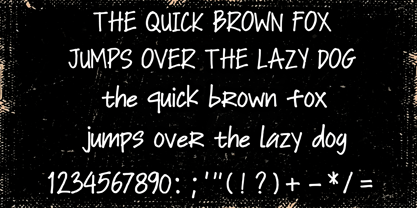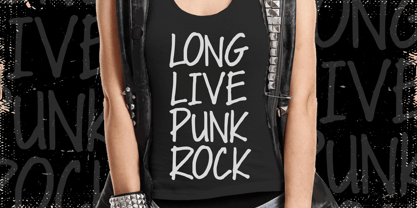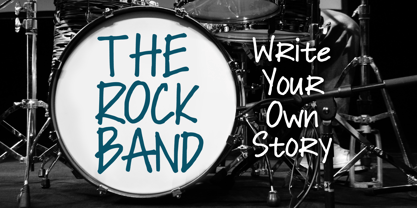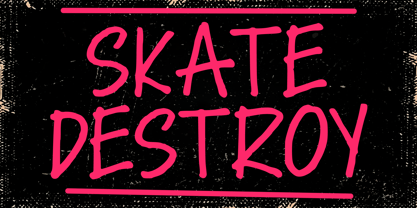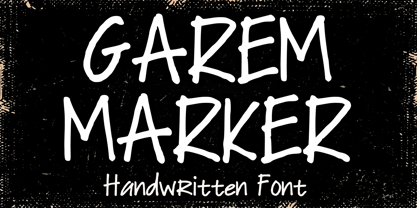
Garem Marker
La familia tipográfica Garem Marker fue diseñada por Gabriel Valentinus y publicada por Mvmet. Garem Marker contiene 1 estilos. Más información sobre esta familia
Experience the audacious spirit of Garem Marker, a handwritten font that breaks away from conventional typography molds. Its distinctive identity thrives in the raw rhythm of its offbeat letterforms, embodying the electric vibrance of chalkboard scribbles and subcultural zines. With its intriguing character, filled with alternative campus charm and genuine ink-sketched texture, this font elevates design to an unmatched standard. Garem Marker is the perfect complement to trailblazing streetwear labels, pulsating music festival visuals, edgy editorial titles, and evocative cinematic social media graphics, capturing the zeitgeist of a daring generation. Ideal for branding, web design, and editorial projects, this font offers a unique blend of creativity and authenticity, making it a standout choice for designers seeking to make a bold statement.